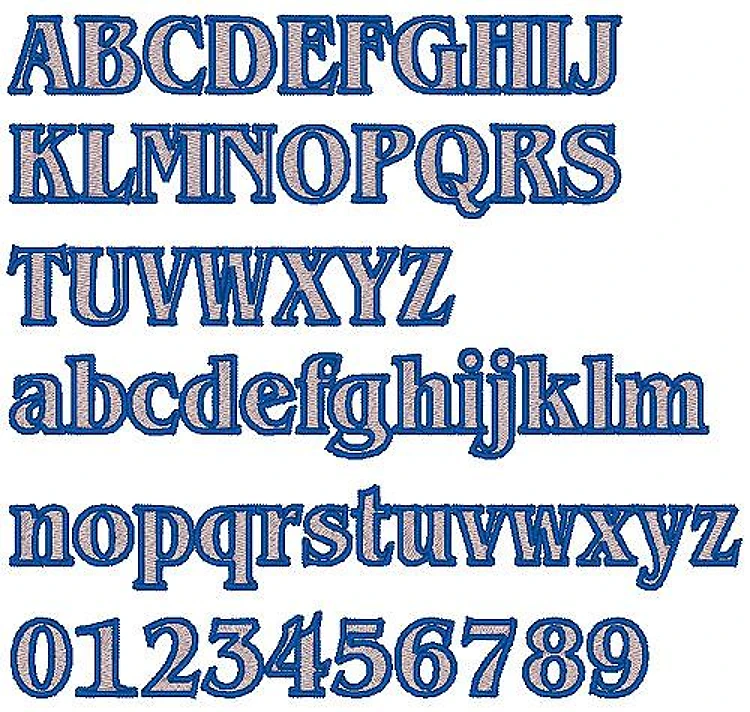
Fireside Threads is happy to present Brian 2 Color Embrilliance machine embroidery font which has Classic block machine embroidery font suitable for bold designs on jackets and caps. The two-color style brings clarity and impact to your projects. Available in BX font and compatible with Embrilliance software. included. If you would like to view more embroidery fonts and alphabets please search our embroidery fonts page.